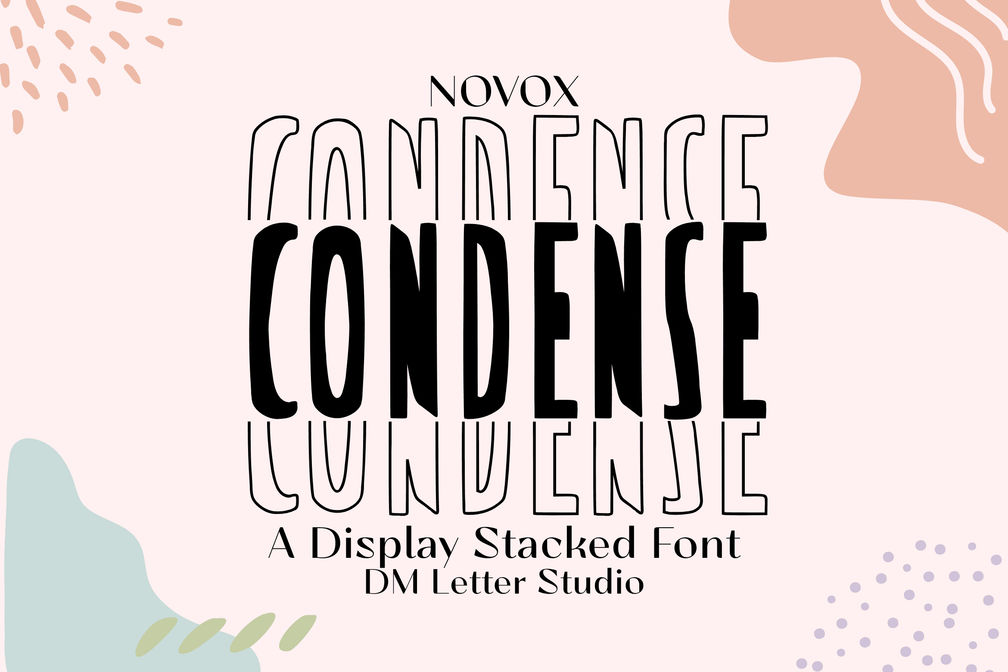
Novox Condense Stacked
Novox Condense Stacked – Slim & Bold Modern Display Font
Novox Condense Stacked is a tall, narrow, and impactful display font designed in a stacked format for maximum vertical presence. With its clean lines and condensed form, this typeface is perfect for space-conscious layouts while maintaining strong visual hierarchy. Ideal for editorial headlines, fashion branding, sports designs, posters, and modern logos, Novox Condense Stacked delivers sophistication with edge.
• Condensed Stacked Structure: Slender yet bold letterforms arranged vertically for high-impact design.
• Modern Aesthetic: Sleek, geometric build that suits tech, editorial, fashion, and promotional projects.
• Space-Efficient Design: Perfect for tight layouts and compositions that require strong type within limited space.
• Versatile Applications: Great for logos, packaging, titles, urban posters, digital graphics, and merchandise.